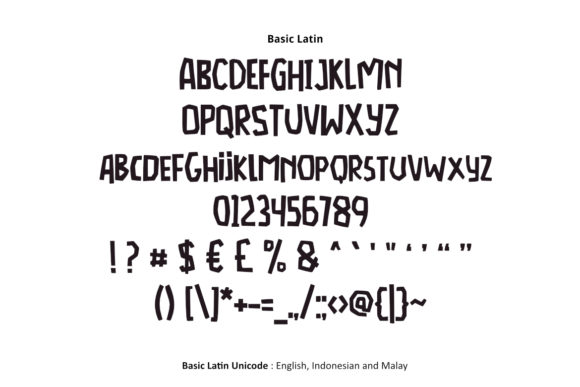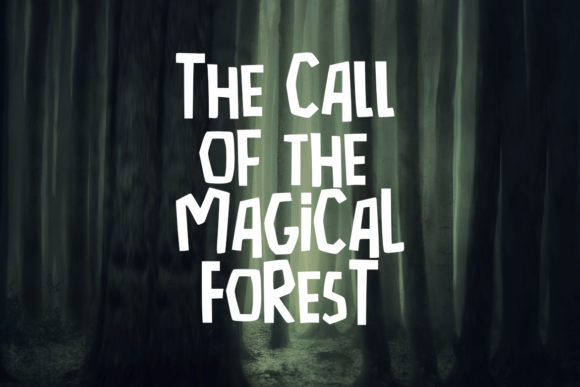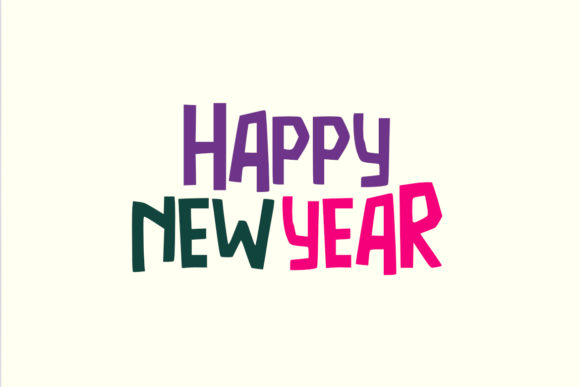
Introducing Bright Side Font: The Perfect Blend of Style and Versatility
Are you tired of using the same old fonts in your designs? Look no further than Bright Side Font, a bold display font that’s sure to become a true favorite in your collection. With its casual charm and down-to-earth feel, Bright Side is the perfect choice for designers and crafters looking to add a touch of personality to their work.
The Story Behind Bright Side Font
Bright Side Font is a carefully handcrafted font, designed to be both readable and versatile. Its creators wanted to create a font that would stand out from the crowd, yet still be easy to read and understand. After months of careful design and testing, Bright Side Font was born – a bold, yet approachable font that’s perfect for a wide range of design applications.
What Makes Bright Side Font So Special?
So, what sets Bright Side Font apart from other fonts on the market? Here are just a few of its standout features:
- Bold and Eye-Catching: Bright Side Font is a bold display font that’s designed to grab attention. Its sturdy lines and confident curves make it the perfect choice for headlines, titles, and other applications where you want to make a statement.
- Casual Charm: Despite its boldness, Bright Side Font has a casual, down-to-earth feel that’s hard to resist. It’s the perfect choice for designs that need to feel friendly and approachable.
- Readability: One of the key features of Bright Side Font is its readability. Even at smaller sizes, this font remains clear and easy to read, making it perfect for body text and other applications where legibility is key.
- Versatility: Bright Side Font is incredibly versatile, and can be used in a wide range of design applications. Whether you’re designing a logo, creating a poster, or building a website, this font is sure to shine.
Using Bright Side Font in Your Designs
So, how can you use Bright Side Font in your designs? Here are a few ideas to get you started:
- Headlines and Titles: Bright Side Font is perfect for headlines and titles, where its boldness and eye-catching curves can really make an impact.
- Logos and Branding: With its casual charm and down-to-earth feel, Bright Side Font is a great choice for logos and branding applications.
- Posters and Flyers: Whether you’re creating a poster, flyer, or other type of promotional material, Bright Side Font is sure to grab attention and make your message stand out.
- Web Design: Bright Side Font can also be used in web design, where its readability and versatility make it a great choice for headings, titles, and other design elements.
Tips for Getting the Most Out of Bright Side Font
Here are a few tips for getting the most out of Bright Side Font:
- Experiment with Different Sizes: Bright Side Font looks great at a wide range of sizes, so don’t be afraid to experiment and find the perfect size for your design.
- Pair it with Other Fonts: Bright Side Font can be paired with a wide range of other fonts to create interesting and dynamic designs.
- Use it on Busy Backgrounds: One of the great things about Bright Side Font is its ability to stand out on busy backgrounds. Don’t be afraid to use it on images, patterns, and other design elements.
| Font Name | Bright Side Font |
| Author | ArdiDesigns |
In conclusion, Bright Side Font is a bold display font that’s sure to become a true favorite in your collection. With its casual charm, readability, and versatility, it’s the perfect choice for designers and crafters looking to add a touch of personality to their work. Whether you’re designing a logo, creating a poster, or building a website, Bright Side Font is sure to shine. So why not give it a try today and see the difference it can make in your designs?